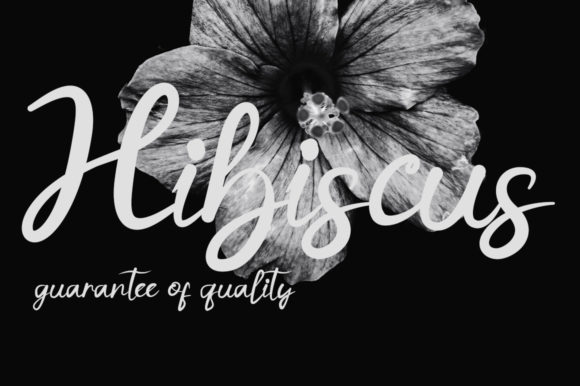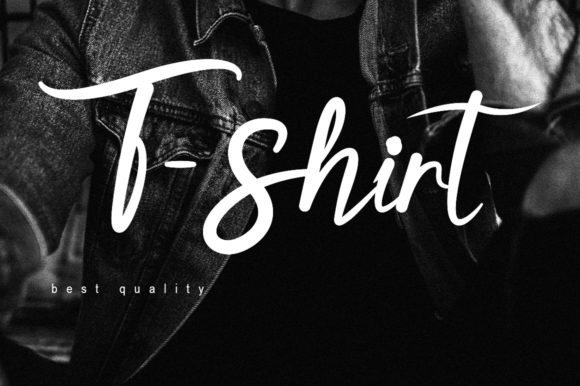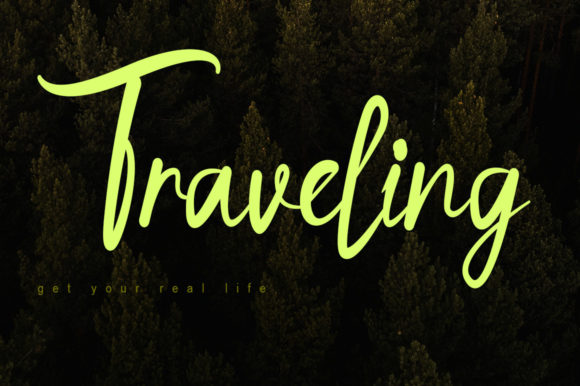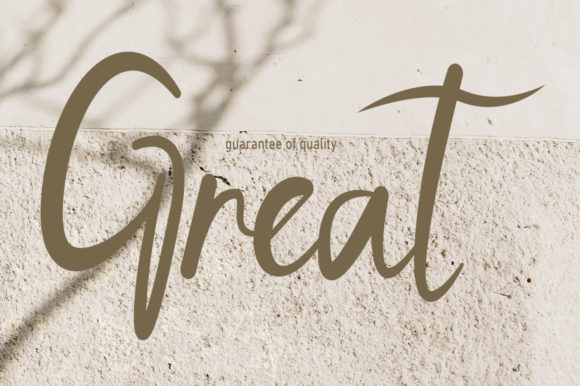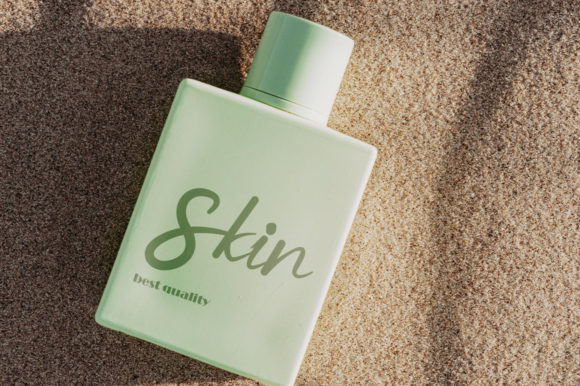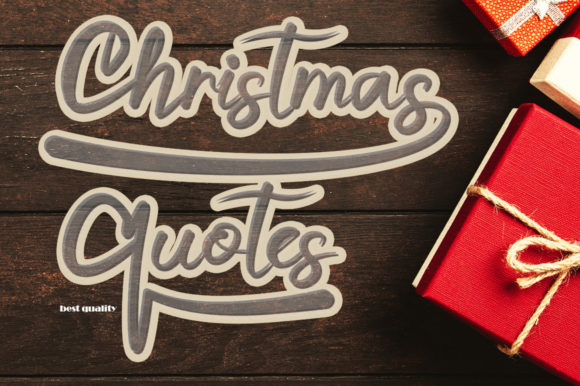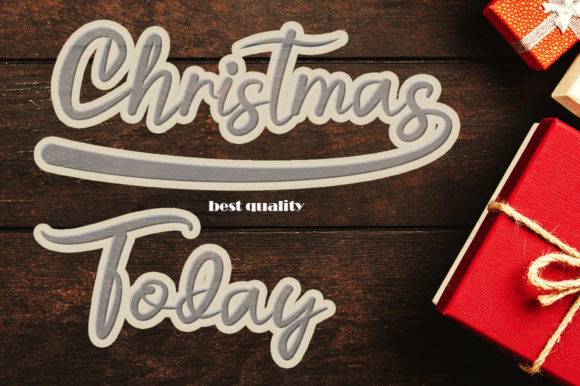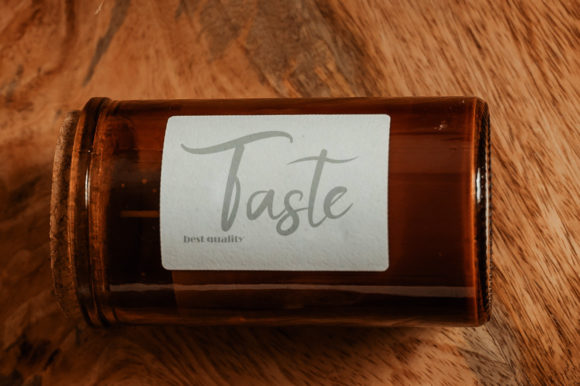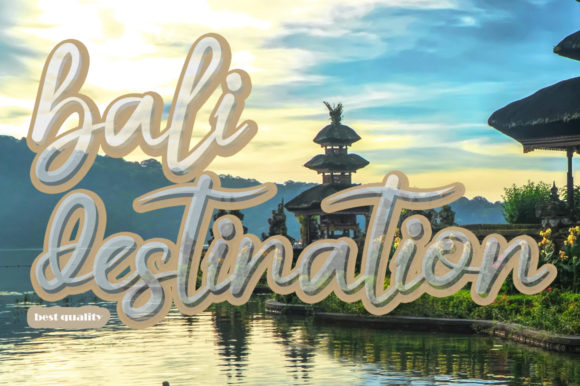
About Hibiscus Font
HibiscusĀ is a delicate and elegant handwritten font. Its distinct and well balanced letters make this font a masterpiece. Fall in love with its incredibly versatile style and use it to create spectacular designs!